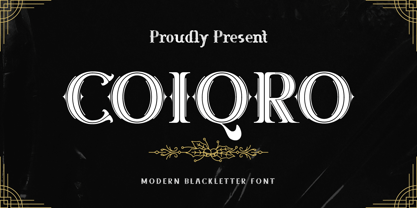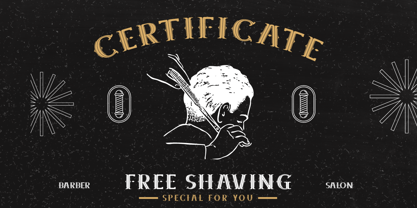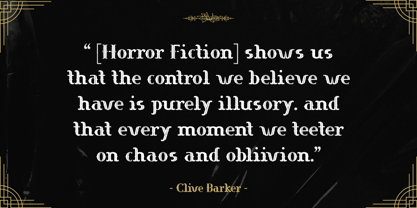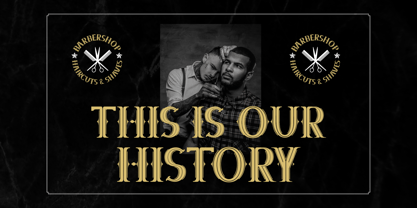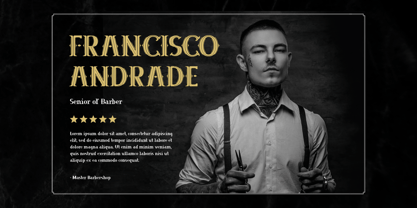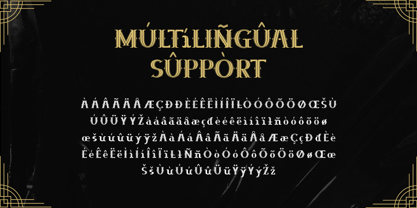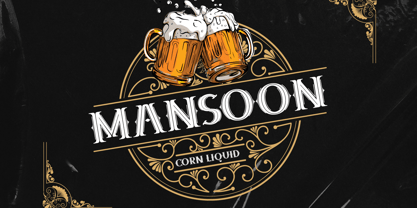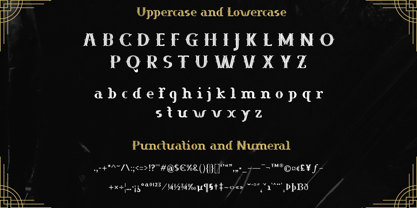
Coiqro
The Coiqro Font Family was designed by Murozakul Akhsan and published by Trabas Kriya. Coiqro contains 1 styles.
Coiqro is a display font that’s all about style. Its unique, creative characters make it a standout choice for branding, advertising, and any design where you want to make a statement. With Coiqro, your designs will always be on trend.
- All glyphs and Feature
- PUA Encoded Characters, Fully accessible without additional design software.
- Fonts include Multilingual: Support for 85 languages.
Afrikaans, Albanian, Asu, Basque, Bemba, Bena, Breton, Catalan, Chiga, Cornish, Croatian, Czech, Danish, Dutch, Embu, English, Esperanto, Estonian, Filipino, Finnish, French, Friulian, Galician, Gusii, Hungarian, Indonesian, Irish, Italian, Kabuverdianu, Kalenjin, Kamba, Kikuyu, Kinyarwanda, Latvian, Lithuanian, Lower, Sorbian, Luo, Luxembourgish, Luyia, Machame, Makhuwa-Meetto, Makonde, Malagasy, Maltese, Manx, Meru, Morisyen, North, Ndebele, Norwegian Bokmål, Norwegian Nynorsk, Nyankole, Oromo, Polish, Portuguese, Quechua, Romanian, Romansh, Rombo, Rundi, Rwa, Samburu, Sango, Sangu, Scottish, Gaelic, Sena, Serbian, Shambala, Shona, Slovak, Slovenian, Soga, Somali, Spanish, Swahili, Swedish, Swiss German, Taita, Teso, Turkish, Upper Sorbian, Uzbek (Latin), Volapük, Vunjo, Walser, Zulu.